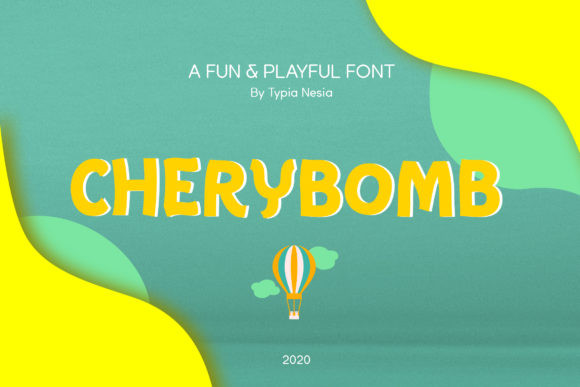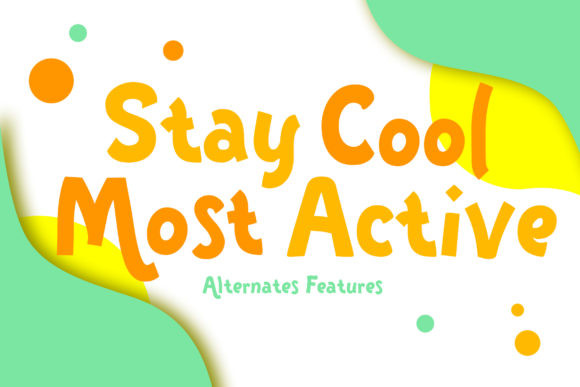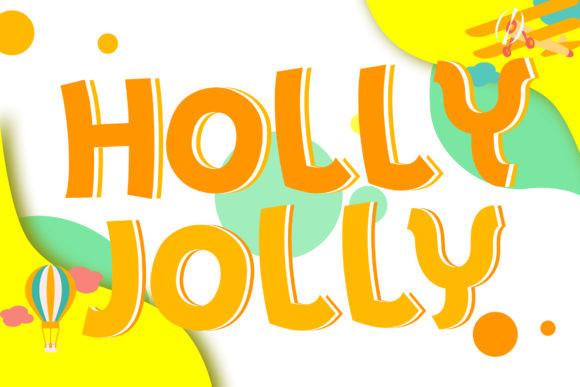
Chery Bomb Font
Chery Bomb is a bold and chunky lettered display font. Add this font to your creative ideas and notice how it will make them stand out! This font is perfect for children themed designs, especially when combined with bright colors.